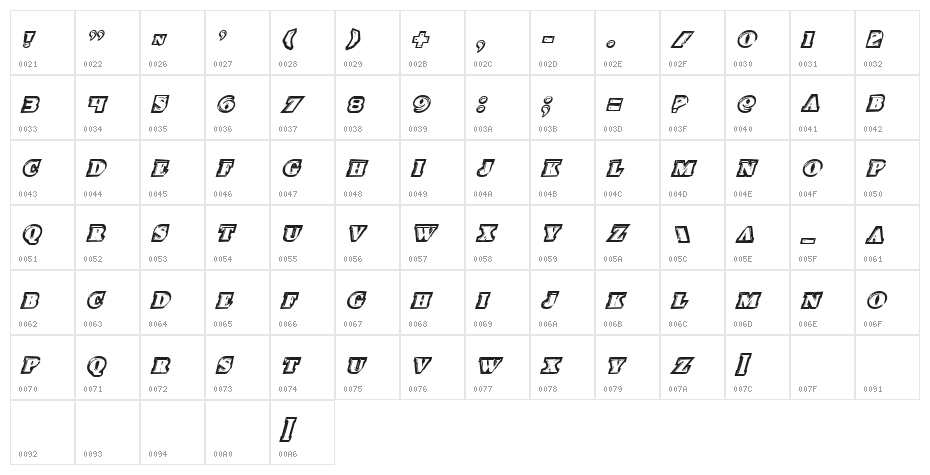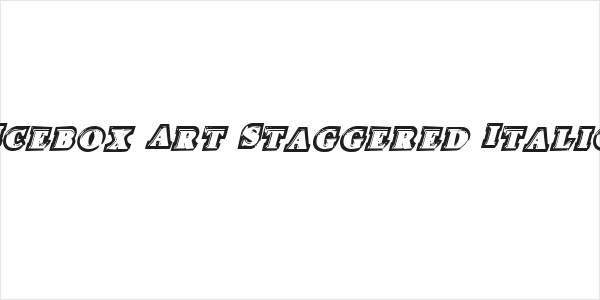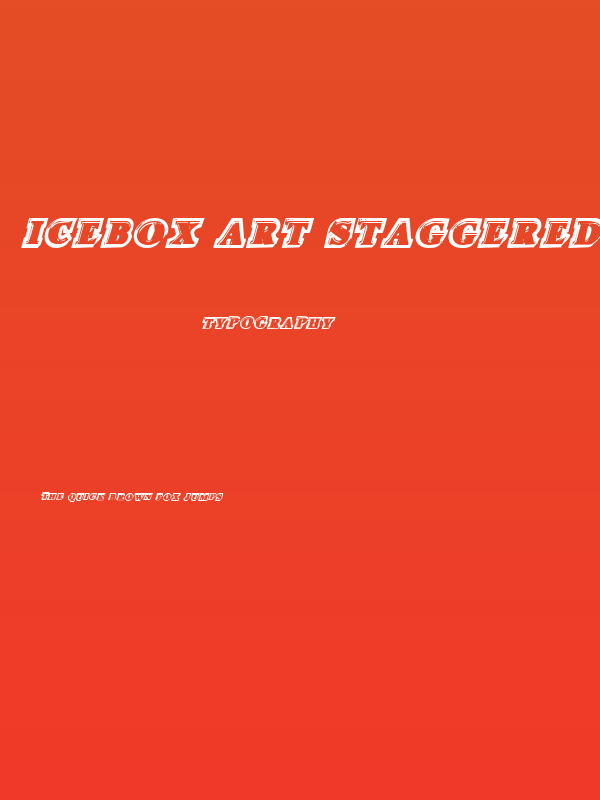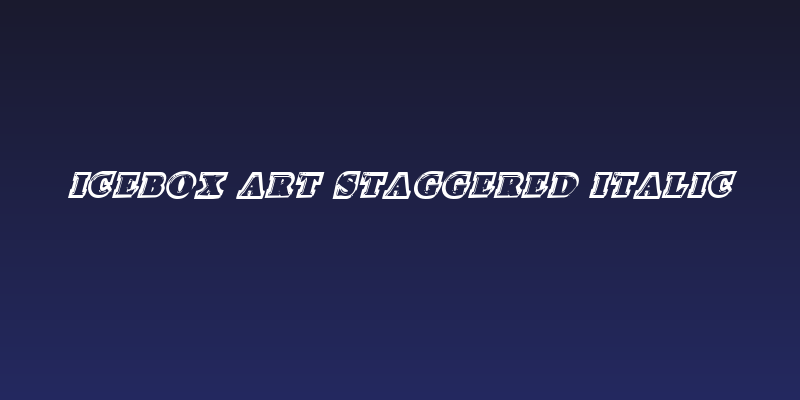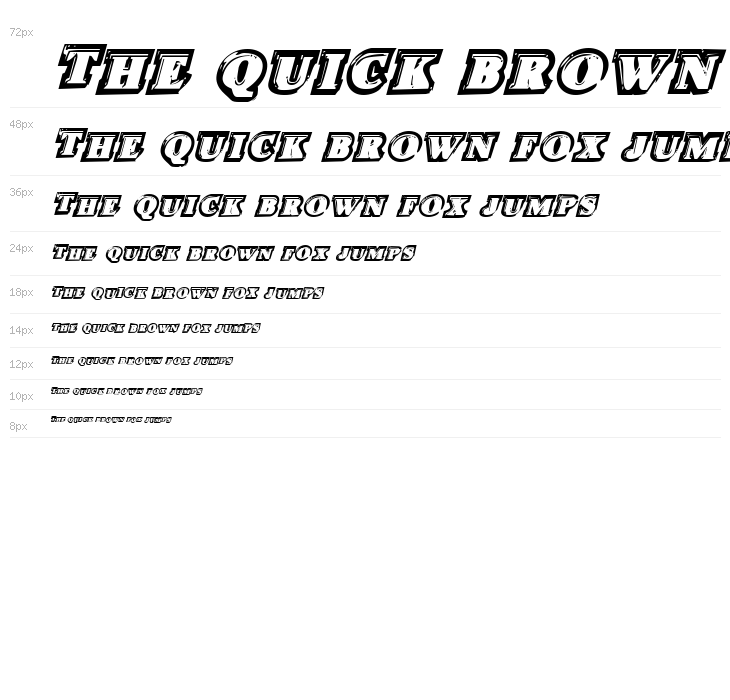
Icebox Art Staggered Italic Font
Icebox Art Staggered Italic Description
This font features a bold and dynamic style with a staggered, italicized design. The characters have a distinct three-dimensional appearance, achieved through the use of shadowing and layering effects. The uppercase and lowercase letters maintain a consistent weight and width, contributing to a cohesive look. The numbers and special characters are designed to match the boldness and style of the alphabet, ensuring uniformity across all elements. This font's unique aesthetic makes it ideal for eye-catching designs.